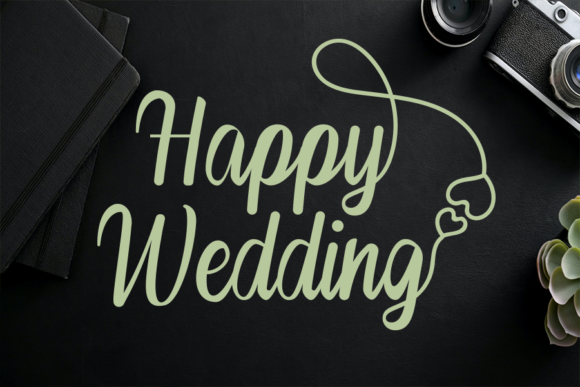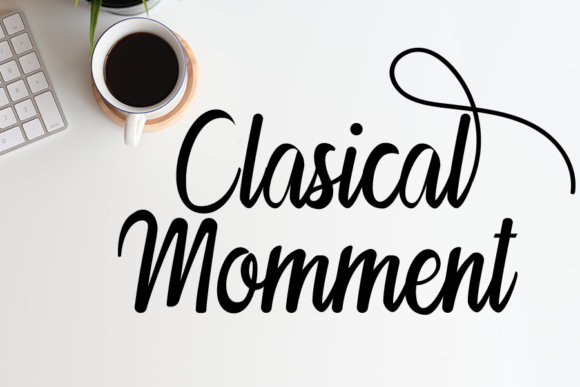
Introduction to Galamedia Font
Galamedia is an elegant and flowing handwritten font.
It is PUA encoded which means you can access all of the glyphs and swashes with ease It features a varying baseline, smooth lines, gorgeous glyphs and stunning alternates.
Key Features of Galamedia Font